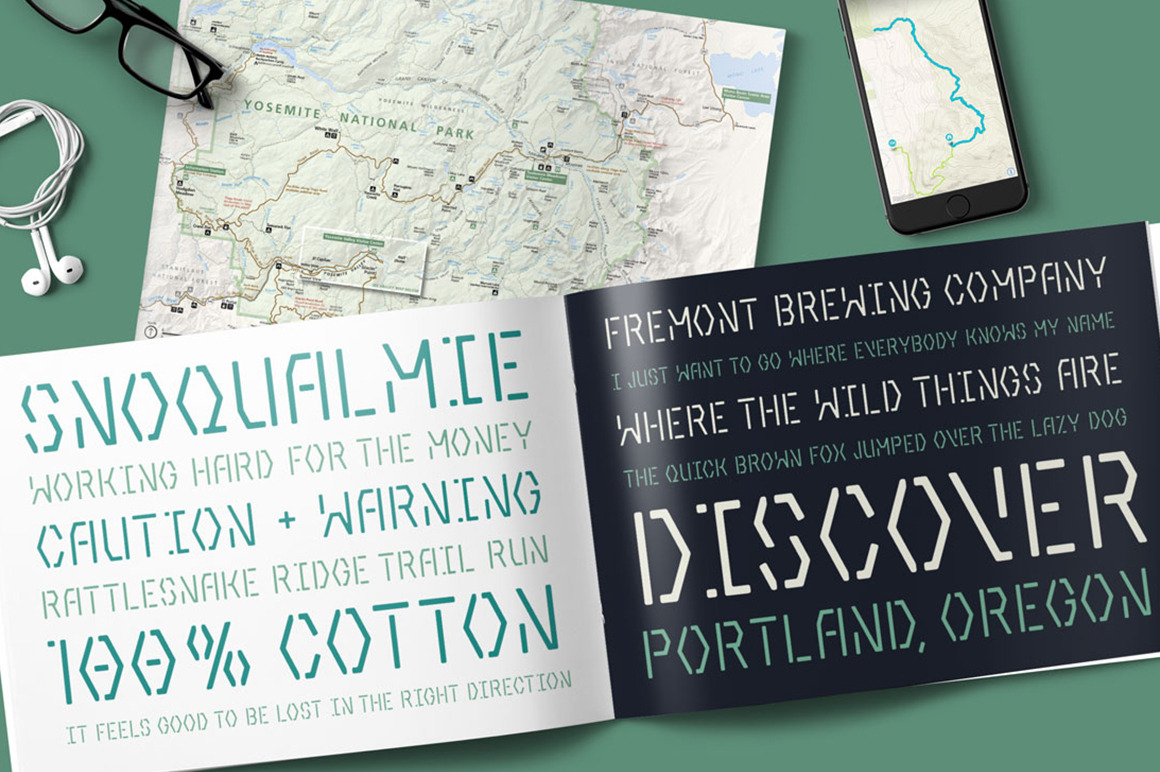
Aventuras Stencil Typeface
"Aventuras" is a striking and versatile font designed to make a bold statement in your designs. Inspired by adventure and exploration, this font combines ruggedness with elegance, making it suitable for a wide range of design projects.
The most distinctive feature of Aventuras is its stencil design, which gives it a unique and modern look. The stencil effect adds a sense of industrial ruggedness to the font, while the clean lines and sharp edges maintain a sense of sophistication.
Despite its stencil design, Aventuras remains highly legible and readable, making it ideal for headlines, posters, logos, and branding projects. The font includes uppercase letters, numbers, and punctuation, offering versatility and flexibility in your design work.
Whether you're creating a rugged outdoor poster, a modern industrial logo, or a sleek branding project, Aventuras is sure to leave a lasting impression. Its bold and impactful design makes it a powerful tool for designers looking to make a statement with their typography.